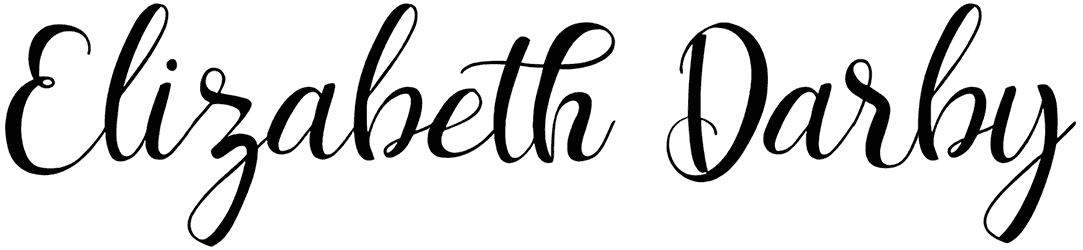
Elizabeth Darby Font
Elizabeth Darby can let your imagination fly and create a delicate touch of line combination. You can include this calligraphy font in personal projects that require pure human emotions.
Also, this love font has the power to enhance your design in a beautiful way, so that no other font can handle it. So if you want to bring magnificence and perfection to your future designs and present a different wedding card, friendly greeting, or love letter, keep Elizabeth Darby in your toolbox.